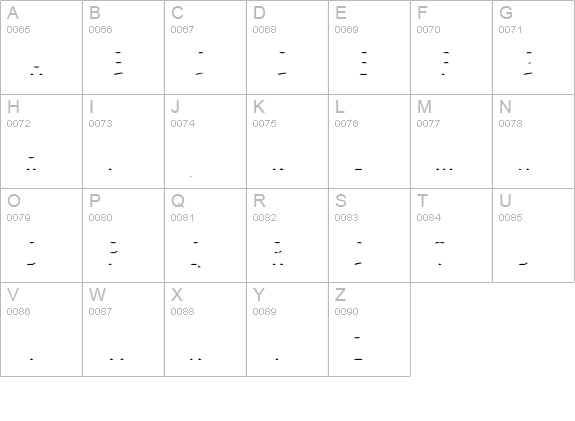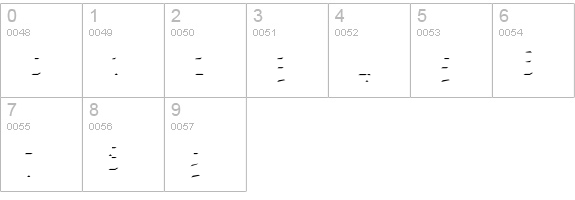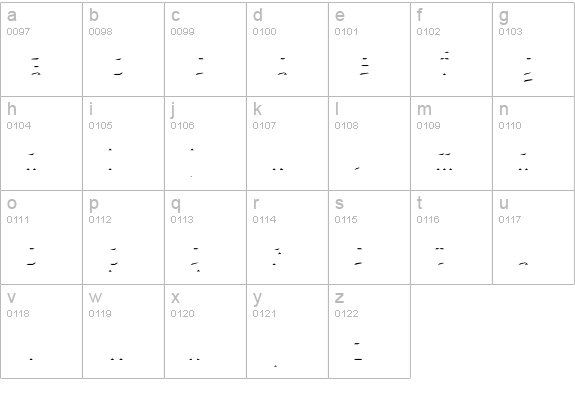
PrimaryStone-Bottom Font Details
PrimaryStone-Bottom font is a unique and elegant typeface that exudes sophistication and charm. Its modern yet classic design makes it perfect for a wide range of design projects, from branding to editorial work. The stone-bottomed letters add a touch of creativity and flair, making this font stand out from the crowd. What's even better is that PrimaryStone-Bottom font is available for free! You can easily download this stunning font at FontsMarket.com and start using it in your projects right away. With its stylish appearance and versatility, PrimaryStone-Bottom font is sure to elevate your designs and leave a lasting impression on your audience. Don't miss out on the opportunity to enhance your creative work with this exquisite font today!